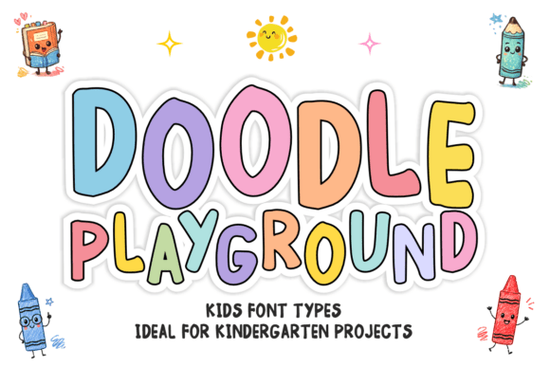
Looking for a font that brings a sense of playfulness and creativity to your designs? The Doodle Playground Font is a perfect choice for anyone who wants to add a touch of whimsy to their work. This hand-drawn display font is ideal for projects aimed at children, making it a great fit for teachers, designers, and crafters alike. Its bold and bubbly style makes it stand out, while the irregular shapes give it a unique, handmade feel.
Whether you're creating educational materials, greeting cards, or promotional content, Doodle Playground adds a cheerful vibe that’s hard to ignore. The font’s thick, rounded letters evoke the nostalgia of childhood drawings and coloring books, making it a favorite among those who want to capture a playful aesthetic. It works well for headers, logos, and any design that needs a friendly, approachable look.
Why Doodle Playground is Perfect for Educational Projects
Teachers and educators often need fonts that are both readable and engaging, especially when working with younger students. Doodle Playground meets that need by combining a fun, child-friendly style with clear letterforms. Its design helps keep attention without being distracting, making it ideal for worksheets, flashcards, and classroom decorations. The font’s irregular shapes also make it visually interesting, which can help maintain a child's interest in learning activities.
For print-on-demand sellers, this font can be a valuable addition to your collection. It’s easy to use and works well across different platforms, from digital designs to physical prints. Whether you’re creating custom t-shirts, mugs, or stationery, Doodle Playground adds a unique touch that stands out from more traditional fonts.
How to Use Doodle Playground in Your Designs
One of the best things about Doodle Playground is its versatility. You can use it for a wide range of projects, from simple text overlays to full-scale branding elements. For example, it’s great for creating eye-catching headlines on social media posts or website banners. It also pairs well with other fonts, allowing you to create a balanced and dynamic layout.
When using Doodle Playground, keep in mind that it works best as a display font rather than for body text. Its bold and stylized appearance makes it perfect for titles, logos, and decorative elements. However, it may not be the best choice for long paragraphs of text, as it can become difficult to read in larger quantities.
For a more refined look, the Mythgrove Font provides a mix of elegance and playfulness. It’s a great option if you want to add a touch of sophistication while still keeping things fun. Each of these fonts has its own unique characteristics, so trying them out can help you discover what works best for your specific needs.
Doodle Playground Font is just one of many creative options available. Whether you're a designer, teacher, or hobbyist, there's likely a font that fits your style and purpose.
Before finalizing your design, take some time to test the font in different contexts. See how it looks on various backgrounds and sizes, and make sure it aligns with your overall vision. By choosing the right font, you can enhance the visual appeal of your work and make it more engaging for your audience.
- Try Doodle Playground for playful, kid-friendly designs
- Use it as a display font for headers and logos
- Pair it with other fonts to create a balanced layout